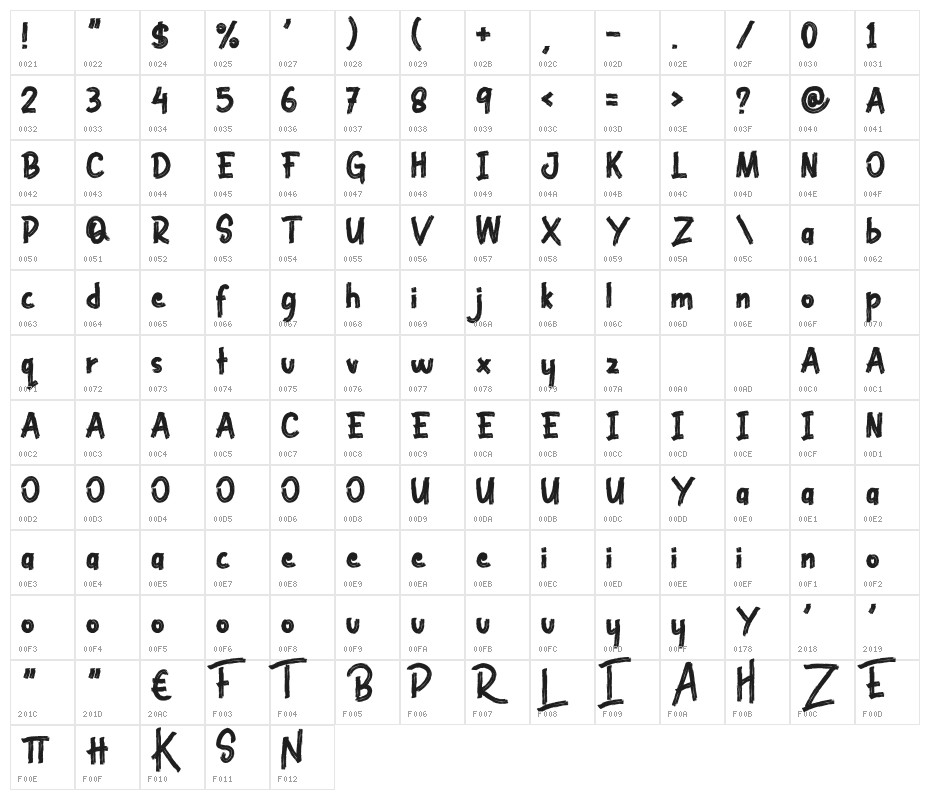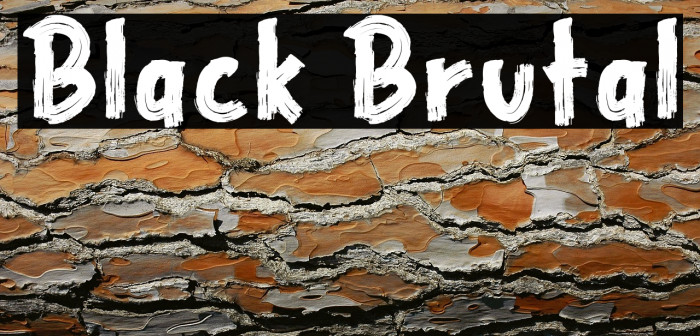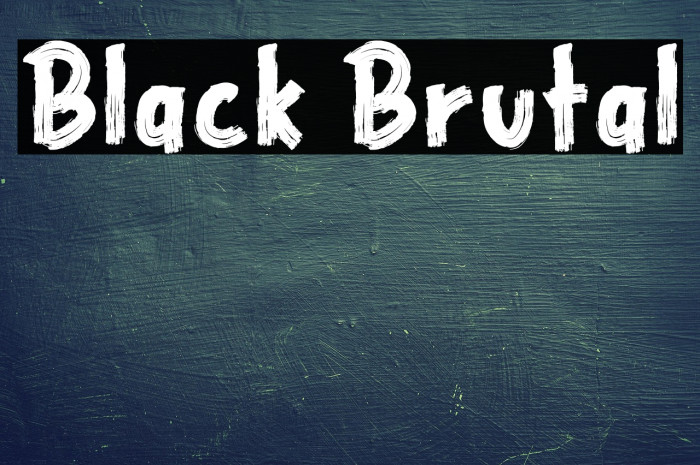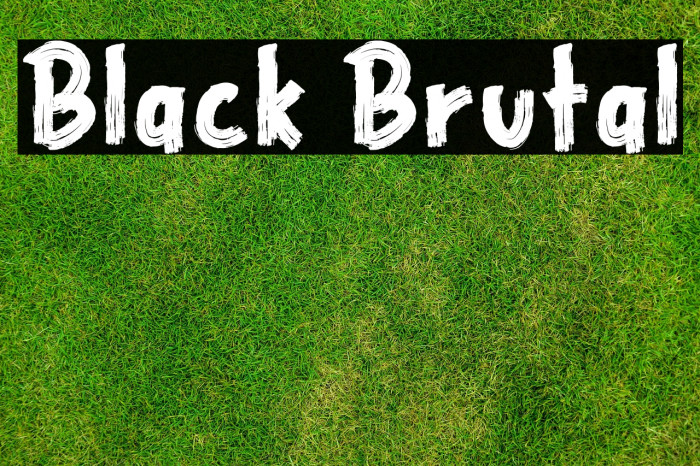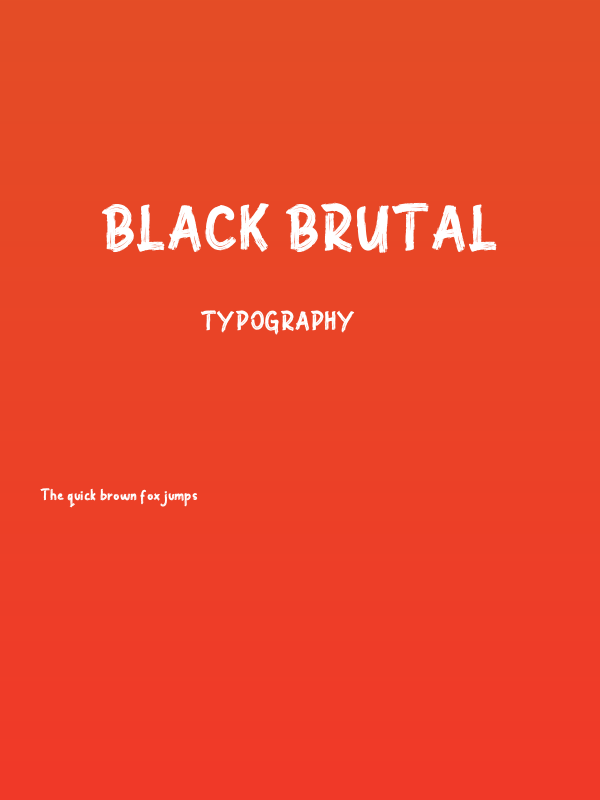
Black Brutal Font
Black Brutal Description
This font exudes a bold and expressive character, with strokes that appear hand-painted, giving it a raw and energetic feel. The uppercase and lowercase letters maintain a consistent style, with irregular edges and varying stroke thicknesses that add to its dynamic appearance. The numerals and special characters follow the same aesthetic, ensuring a cohesive look across all text elements. Its brush-like texture and uneven lines make it stand out, perfect for projects that require a touch of creativity and boldness.
Overall StyleModern, Artistic
Proposed ProjectsIdeal for posters, album covers, street art designs, and any project needing a bold, artistic touch.